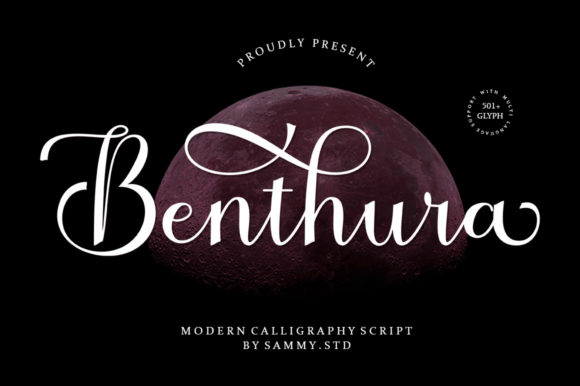
Benthura Script: Crafting Elegance into Your Visual Projects
Understanding the Personality of a Delicate Typeface
When selecting a premium font, the goal is rarely just to find something readable; it is about finding a voice. Benthura Script speaks in a tone that is soft, sophisticated, and undeniably romantic. It is not merely a collection of letters but a carefully crafted script font designed to inject a sense of freshness into any layout. Unlike rigid geometric typefaces, this font flows with a natural rhythm. It mimics the fluidity of high-end calligraphy while maintaining the structure necessary for modern digital design. For designers and creatives, it offers a way to break away from the monotony of standard system fonts and introduce a layer of human touch.
The visual weight of Benthura Script is balanced perfectly. It is delicate enough to suggest fragility and care, yet bold enough to stand as a headline in editorial design. The strokes vary in thickness, creating a dynamic contrast that draws the eye. This is a creative font that does not scream for attention; rather, it invites the viewer in. It works exceptionally well when you want to convey a message of luxury, intimacy, or artisanal quality without looking like a generic template. If you are building a brand identity that relies on trust and beauty, this typeface sets the stage immediately.
Strategic Applications: Where Benthura Script Shines
Knowing where to deploy a script font is just as important as choosing the right one. Benthura Script excels in environments where elegance is the primary currency. In logo design, it is a powerhouse. Think of boutique fashion labels, high-end jewelry stores, or wedding photography studios. When used as a primary wordmark, the font creates an immediate association with sophistication. However, it requires careful kerning and sizing to ensure the loops and swashes do not crowd the logo mark.
Beyond logos, this typeface is a standout choice for packaging design. If you are a small business owner selling handmade soaps, candles, or gourmet chocolates, the aesthetic of your product matters as much as the taste or scent. Benthura Script adds that "handmade" feel that consumers love, signaling that the product inside was crafted with care. It bridges the gap between handwritten font charm and professional commercial font reliability.
For publishing and blogging, the application is slightly different but equally powerful. While long-form body text should always use a legible serif font or sans serif font, Benthura Script is perfect for chapter titles, pull quotes, or featured headers. It breaks up the visual monotony of a text-heavy page and guides the reader’s eye to the most important sections. Similarly, in social media graphics, where attention spans are short, a beautiful script header can stop the scroll and encourage engagement.
Mastering the Details: PUA Encoding and Glyph Access
One of the most technical yet valuable features of Benthura Script is its PUA encoding. For those unfamiliar with the term, PUA stands for Private Use Area. This means that all the special characters, swashes, and ligatures are accessible even if you are using software that does not support OpenType features natively. You do not need to be a master of Adobe Illustrator to use the fancy alternates.
This accessibility is vital for entrepreneurs and hobbyists who might be using tools like Canva or PicMonkey. With Benthura Script, you can easily copy and paste these special glyphs to customize your text. This allows for a level of personalization that standard fonts simply cannot offer. You can add a flourish to the beginning of a sentence or a unique tail to the end of a signature, making your brand identity truly unique. It transforms the font from a static tool into a dynamic design asset.
Practical Guidance: Pairing and Readability
While Benthura Script is beautiful, it requires a thoughtful partner. In modern typography, contrast is king. Because this is a flowing, decorative script, it pairs best with a clean, geometric sans serif font or a sturdy serif font. Avoid pairing it with other decorative or handwritten styles, as this will create visual chaos and lower readability. A simple sans serif provides a neutral backdrop that allows the elegance of the script to pop without competition.
Readability is a critical consideration. Because of its cursive nature, Benthura Script is not suitable for body copy or small legal text. If you try to force a paragraph of information into this font, your audience will struggle to decipher it, and you risk losing the message entirely. Instead, use it for display purposes—headings, titles, and short phrases. When used correctly, it enhances the visual hierarchy of your design, making it easier for users to scan and understand the content.
Evaluating Fit for Your Next Project
Before integrating Benthura Script into your workflow, consider the emotional tone of your project. Does the project require a serious, corporate tone? If so, this might be too whimsical. However, if the goal is to evoke emotion, romance, or creativity, it is an excellent fit. It is particularly effective for web design elements like hero sections or call-to-action buttons where you want to add a personal touch.
When testing the font, look at the specific letters that appear in your project name or headline. Some script fonts have difficult letters like capital 'G' or 'S'. Benthura Script was crafted with care, but always view the specific combination of characters you intend to use. Check the spacing between letters; sometimes, manual kerning is required to ensure the flow looks natural rather than mechanical. By taking the time to test and refine, you ensure that this premium font elevates your work from amateur to professional. It is a tool for those who care about the details, and the details are what make a design memorable.